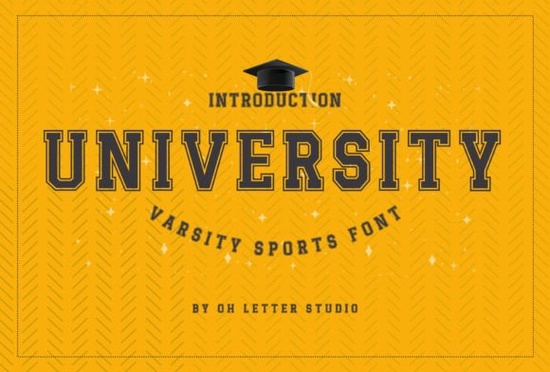
If you’re designing merch for a school spirit event, creating bold posters for a local sports team, or just want that classic collegiate vibe in your projects, University Font delivers the punch you need. It’s not overly fancy it’s built to stand out with thick strokes and sharp angles that echo the energy of stadium crowds and locker room chants. Whether you’re running a small print shop or making custom tees for your kid’s little league, this font slots right in without needing extra design tricks.
What kind of projects work best with University Font?
This font thrives where visibility and attitude matter. Think:
- T-shirts, hoodies, and caps for school teams or alumni events
- Banners and flyers for pep rallies or community tournaments
- Social media graphics promoting game nights or fundraisers
- Custom stickers, mugs, or water bottles for sports fans
It’s especially useful if you’re selling on platforms like Etsy or Redbubble customers searching for “college style fonts” or “sports team typography” often land on designs that feel authentic. And because University Font leans into that retro-athletic look without being dated, it stays relevant season after season.
How does it compare to other display fonts?
Not all bold fonts carry the same weight literally and stylistically. If you’ve tried Brother Garage, you know it’s got more of a gritty, workshop feel. Daily Magnolines leans elegant and scripty, better for weddings than touchdowns. Bigland Retro brings 80s arcade vibes, while Elementary Type is playful and classroom-friendly.
University Font sits squarely in the zone of athletic pride clean enough to read from across a gym, but stylized enough to feel unique. You won’t confuse it with generic block letters. The sharp serifs and slightly condensed letterforms give it that “varsity jacket” personality designers love.
Any tips for pairing it with other fonts or elements?
Because University Font is so visually heavy, balance matters. Try these combos:
- With a clean sans-serif Use something like Montserrat or Lato for body text. Keeps things readable without competing.
- Over textured backgrounds Grunge paper, faded denim, or concrete textures make the font pop even more.
- Inside banners or badges Add circular emblems or ribbon shapes behind the text to mimic classic sports patches.
Avoid pairing it with other ultra-bold display fonts it’ll feel cluttered. And skip delicate scripts unless you’re going for intentional contrast (like “Fight Like a Champion” in University next to “Est. 1987” in cursive).
- Test readability at small sizes Zoom out. Does “CHAMPIONS” still look crisp on a 2-inch sticker?
- Check character set Need accented letters? Symbols? University includes basic punctuation and numerals, but verify extras if you’re designing for international clients.
Fonts like this don’t need hype. They just need to do their job loudly, clearly, and with personality. If your project needs that locker-room-ready confidence, University Font’s probably already halfway there.